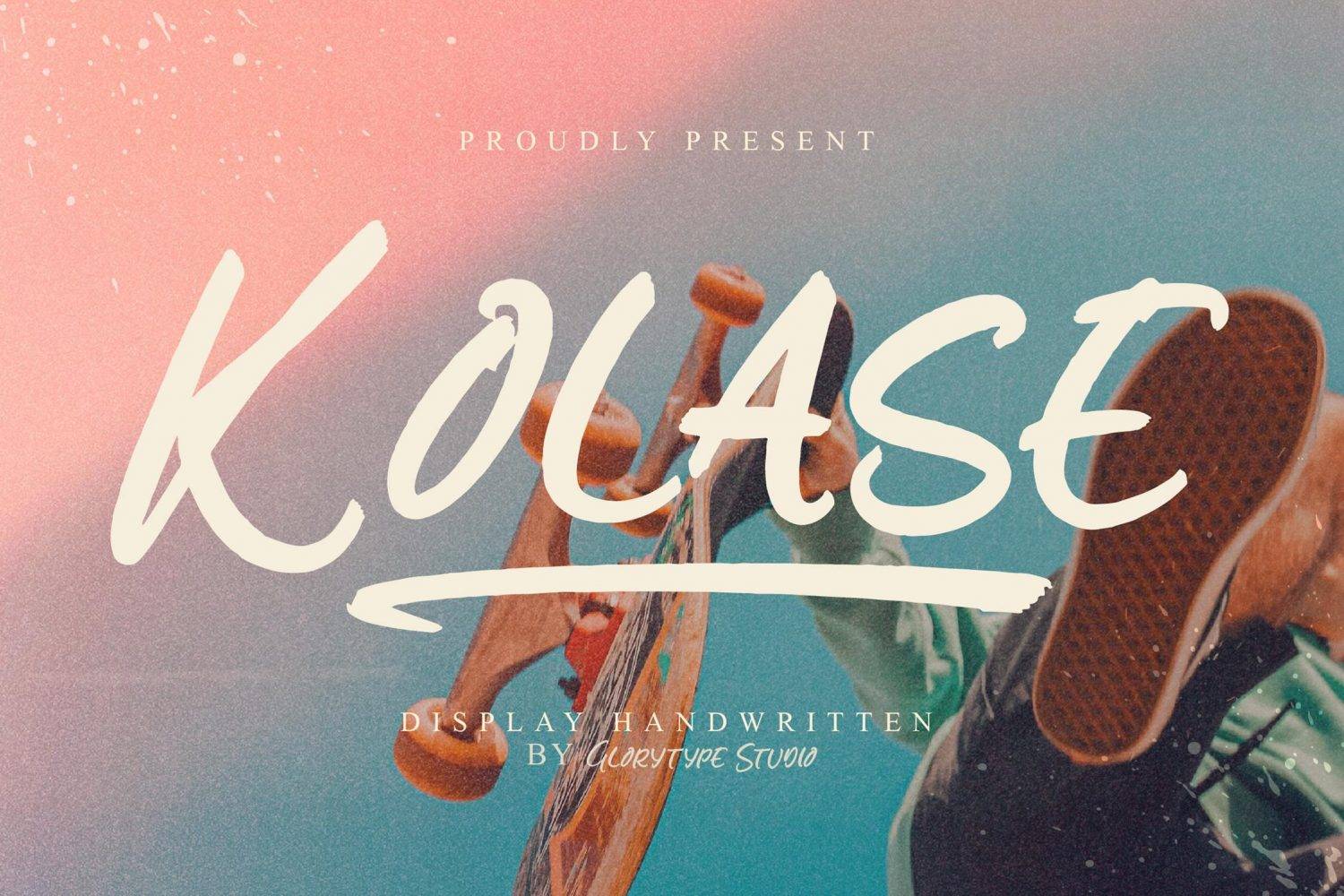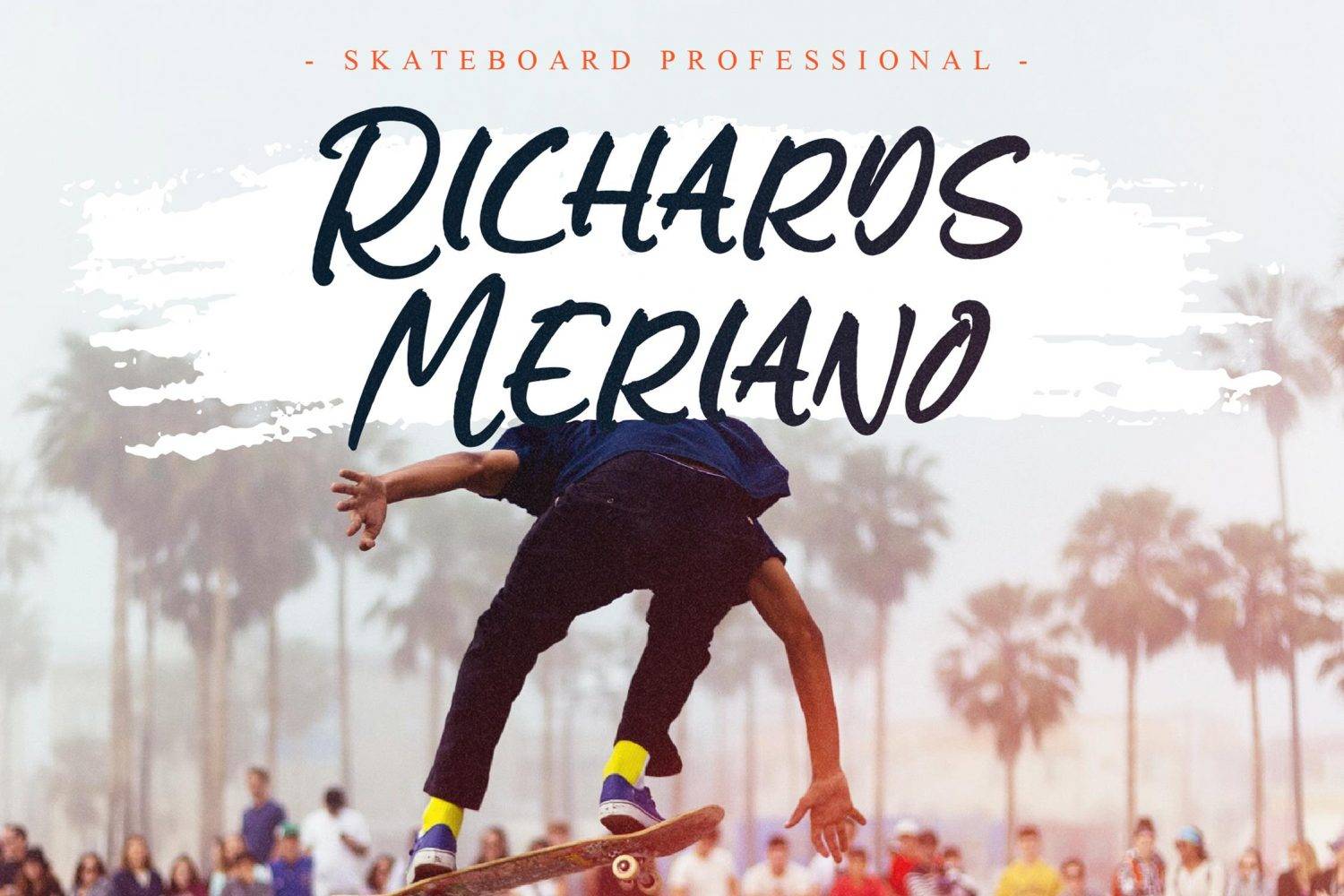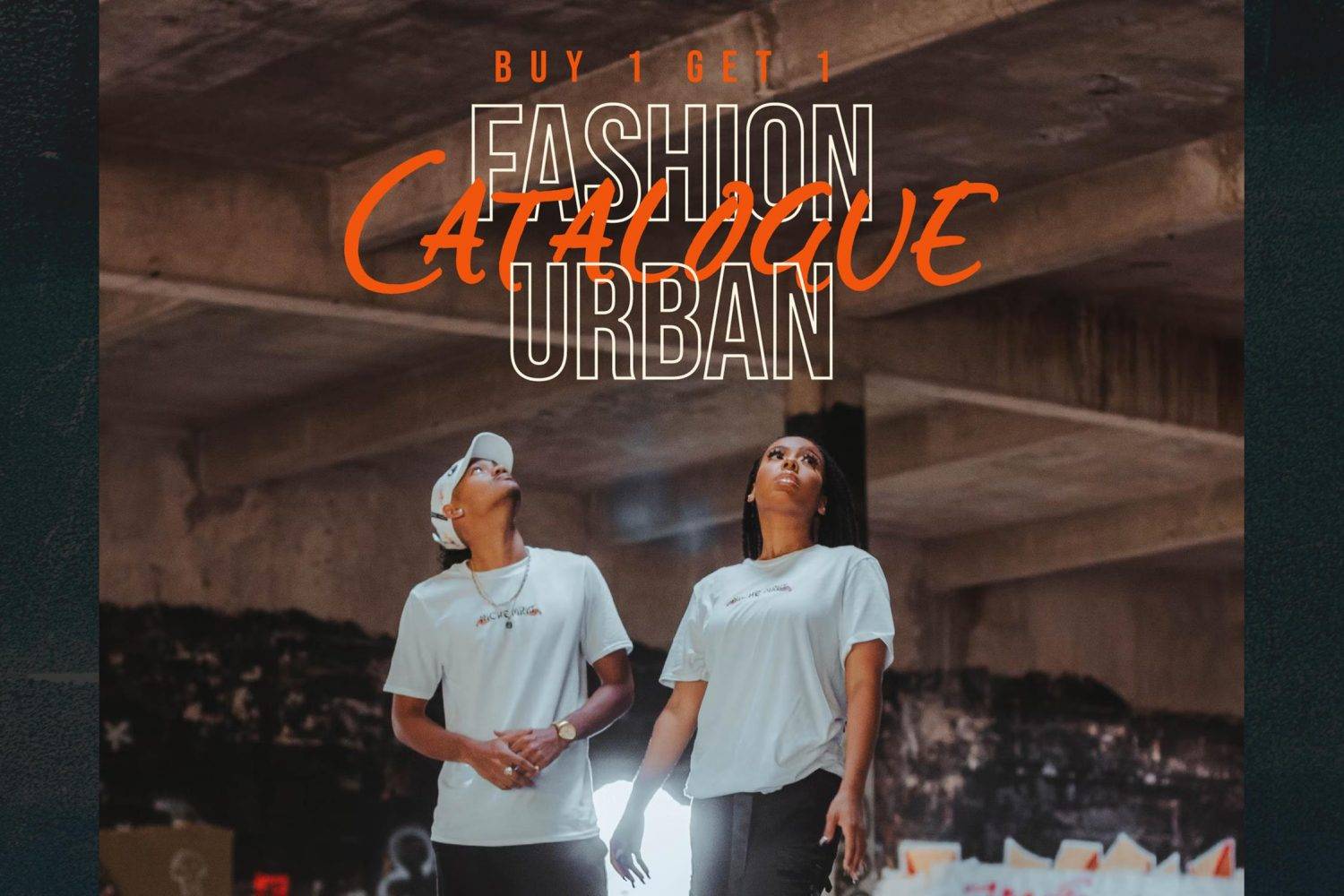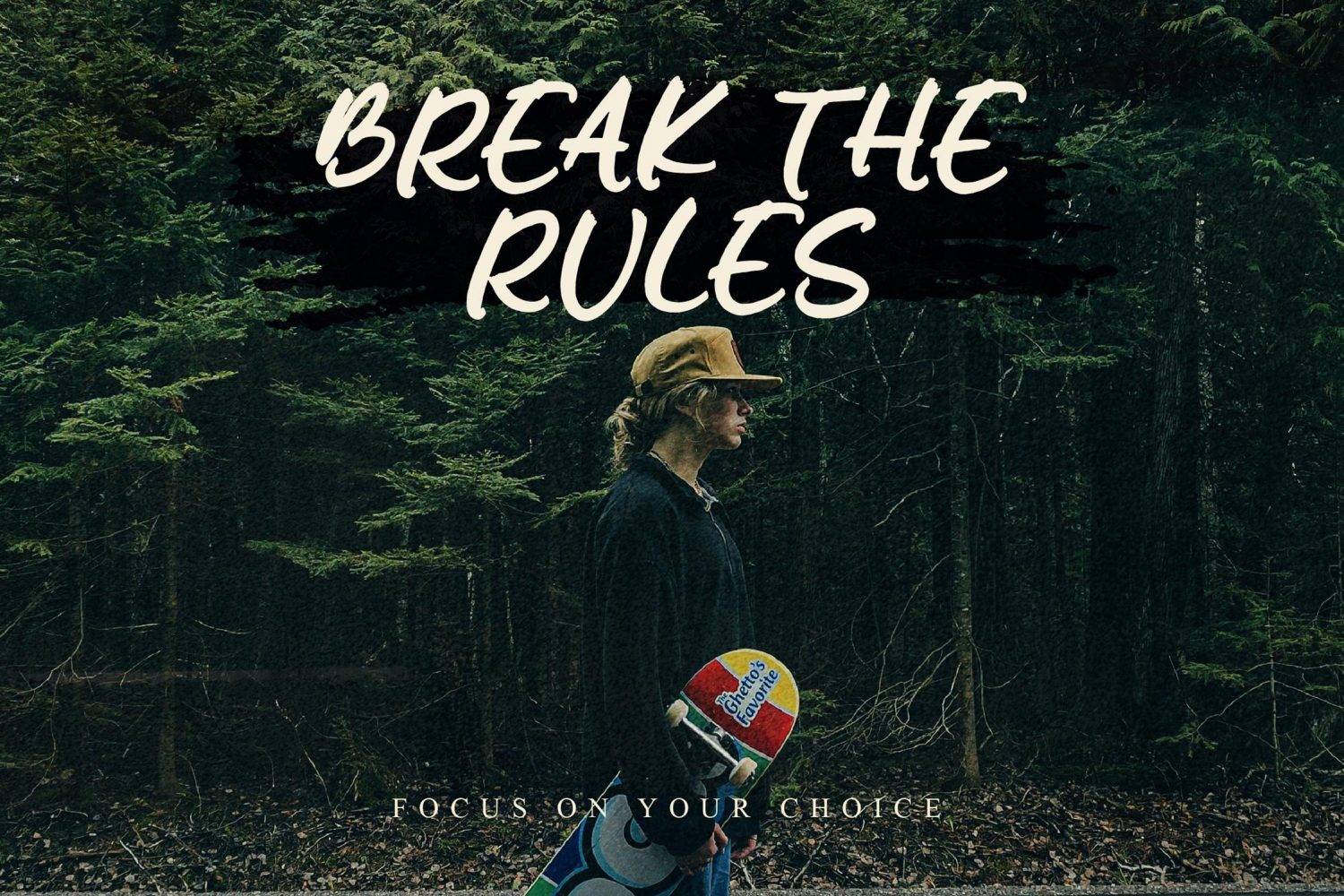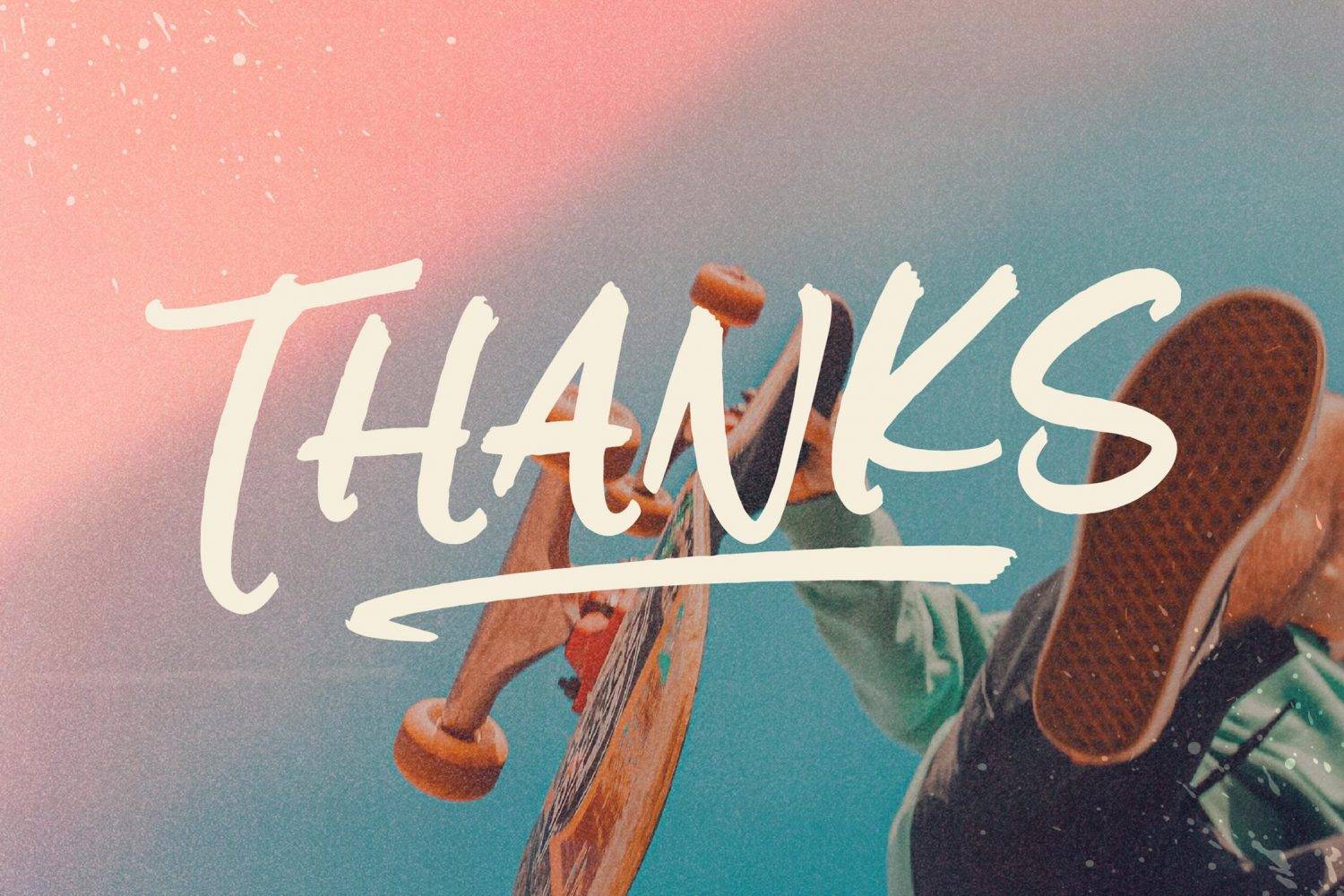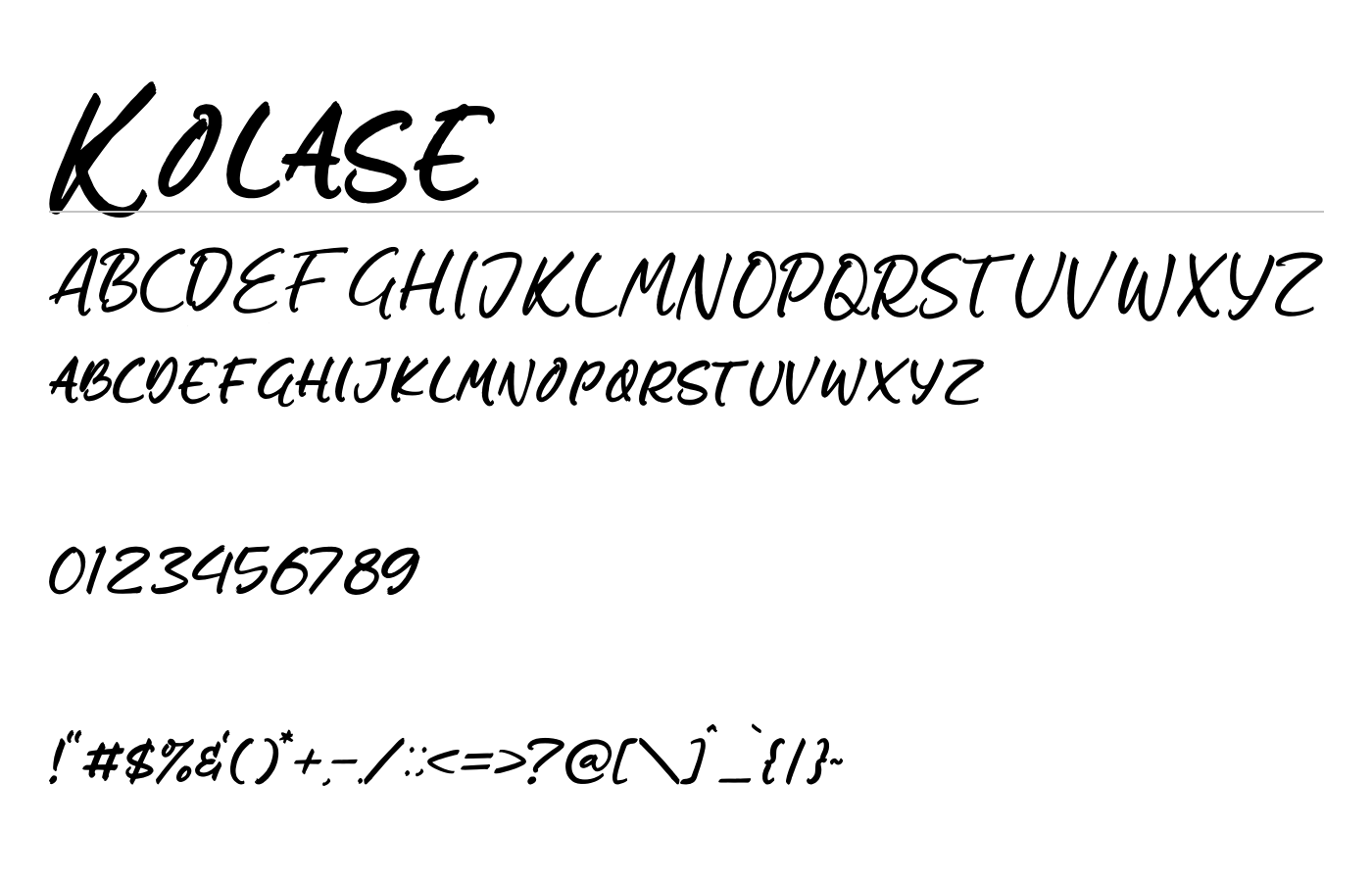
Kolase is a lively and casual script font with a handwritten feel, characterized by its fluid, slightly slanted strokes and natural variation in line thickness. Its informal and approachable style makes it perfect for creative projects, personal branding, and playful designs that need a warm, human touch. This font works well for logos, invitations, and headlines where a friendly yet distinctive look is desired.
Kolase Font